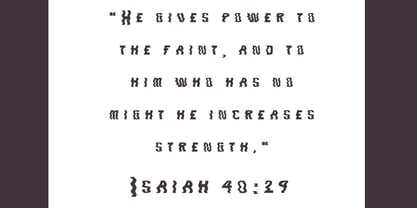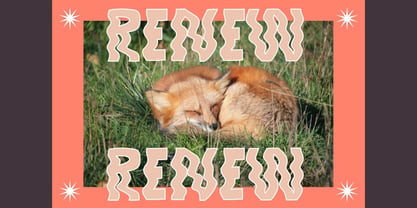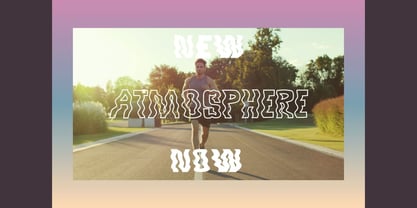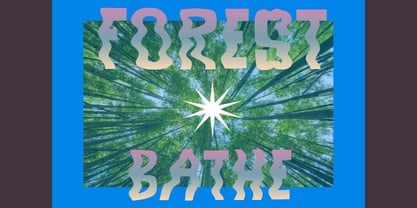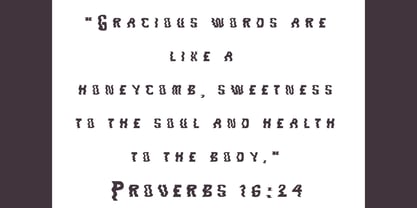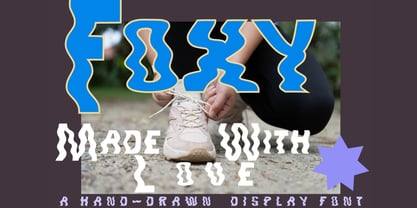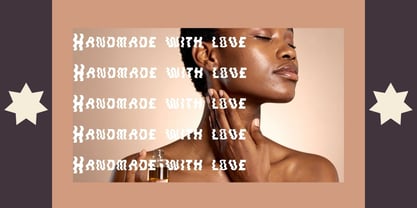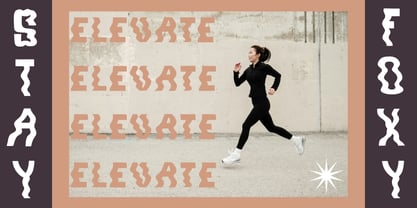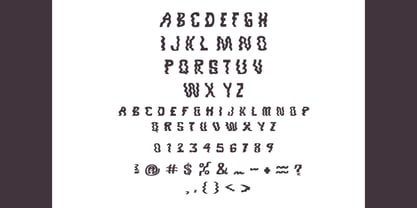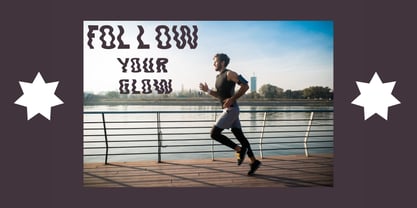
The Foxy Font Family was designed by Eryn Rose Tomlinson and published by Eryn Rose Design. Foxy contains 1 styles. More about this family
Foxy embodies a Hand-lettered, bold style with character, that you simply won't find anywhere else. Stylish waves that translate to an effortlessly cool vibe. If you are looking for modern banding that sets trends, not follows them, look no further than Foxy. Weather you are designing for a skincare brand, website, clothing brand, label design, album cover, social media or lifestyle brand, Foxy is sure to take your designing to the next level, captivating your audience to lean in and learn more. If you are looking for perfectly imperfect, artistically crafted handmade charm, you will surely enjoy using this font.
Eryn Rose, a graduate of the Rhode Island School of Design, is a multifaceted artist specializing in illustration, graphic design, and type design. She skillfully blends modern and classic typography, leveraging her fine art and design expertise. Each piece of her typography is unique, ensuring that it cannot be replicated or found elsewhere. Eryn's typography is artfully crafted, infusing warmth into her designs that only a human touch can provide. Her work resonates across various industries, including editorial, tech, and retail, setting her apart in the competitive market with her signature style and design philosophy.